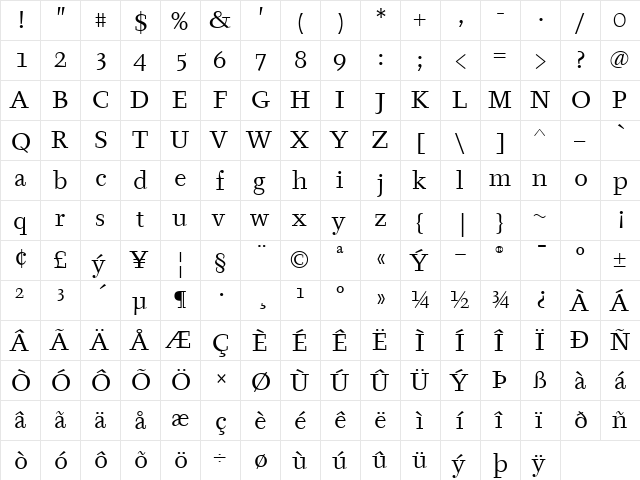
TyfaITC TT Book
| Foundry | International Typeface Corporation |
| Designer | Josef Tyfa/Frantisek Storm |
Design Context for TyfaITC TT Typeface
TyfaITC TT is a composed and adaptable typeface that performs quietly and consistently across a wide range of design contexts.